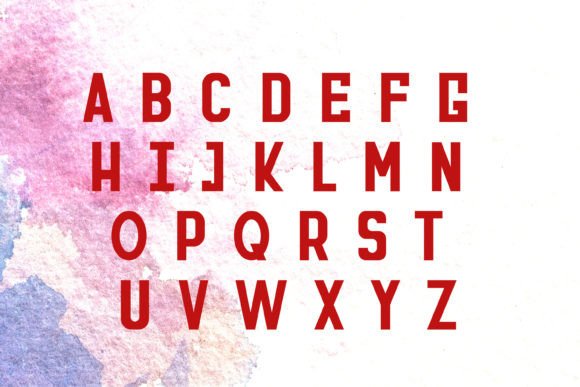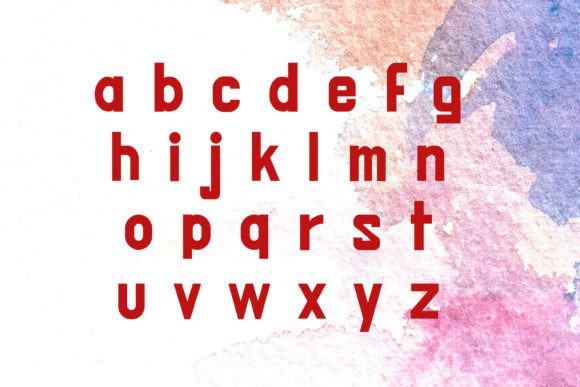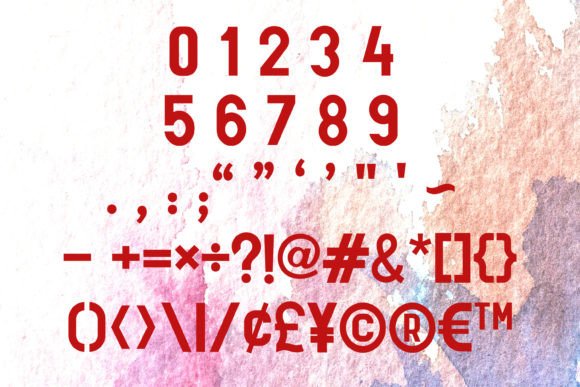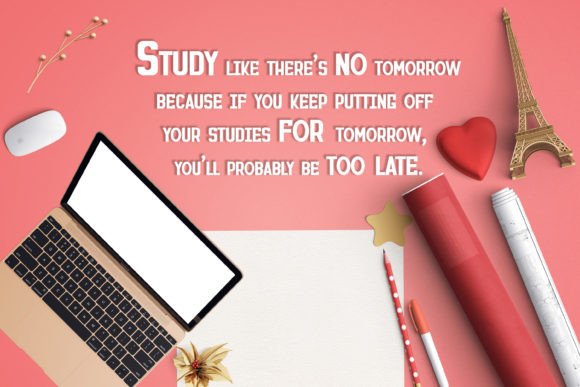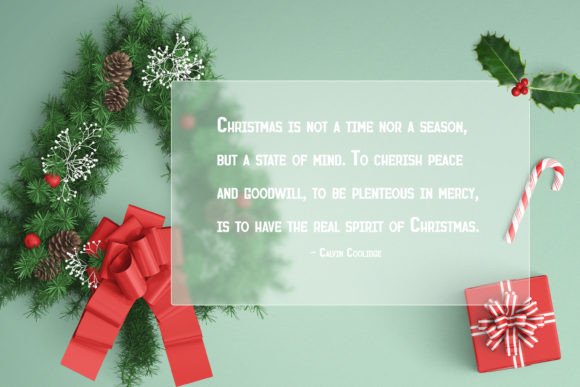
The Ultimate Guide to Best Wishes Font: Elevate Your Designs with this Modern Sans Serif
I’ll never forget the time I was working on a project for a client who wanted a simple yet elegant font to convey their brand’s message. I spent hours scouring through font libraries, but nothing seemed to fit the bill. That was until I stumbled upon Best Wishes, a modern and minimal sans serif font that instantly caught my attention. In this article, I’ll share my experience with Best Wishes, its features, and how to make the most of it in your designs.
An Honest Review of Best Wishes Font
So, what makes Best Wishes stand out from the crowd? Here are some of the things I love about this font:
- ✨ Simple yet elegant design that works well with a variety of concepts
- ✅ Highly versatile and can be used for both digital and print projects
- 💡 Works well with OpenType features, glyphs, and stylistic alternates
- 🔥 Instantly elevates your designs with its modern and fresh look
While Best Wishes is an excellent font, it’s not perfect. Here are some small quirks or limitations to keep in mind:
- 🤔 Limited character set compared to some other fonts
- ⚠️ May not work well with very ornate or decorative designs
A Practical Guide to Using Best Wishes Font
- Experiment with OpenType features, glyphs, and stylistic alternates to add some personality to your text
- Use the font to create elegant and simple documents
The Backstory Behind Best Wishes
Best Wishes was designed by a team of typographers who wanted to create a font that’s both simple and elegant. The font was inspired by modern sans serif designs and is meant to work well with a variety of concepts. While the design team behind Best Wishes is fictional, their goal was to create a font that’s both versatile and beautiful.
| What type of font is Best Wishes? | Best Wishes is a modern and minimal sans serif font. |
| Is Best Wishes suitable for digital projects? | Yes, Best Wishes works well with digital projects and can be used for both web and mobile designs. |
| Does Best Wishes support OpenType features? | Yes, Best Wishes supports OpenType features, glyphs, and stylistic alternates. |